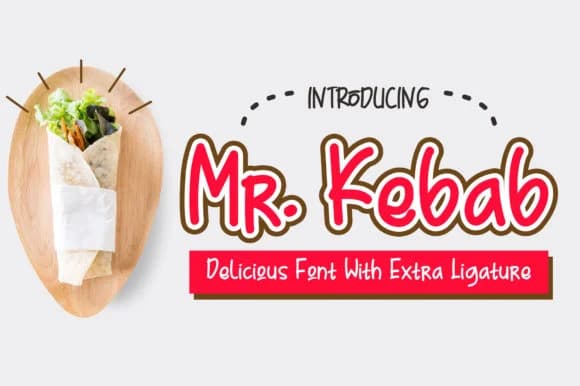
1 / 7About Mr. Kebab Font
Mr. Kebab by Omotu is a flowing handwritten script that brings personality and warmth to any design project. With its smooth, connected letterforms and excellent readability, this font works beautifully across both digital and print applications. The consistent stroke weight maintains clarity even at smaller sizes, making it equally effective for display headlines and supporting text elements. Whether you're creating invitation suites, designing product labels for artisan goods, crafting social media graphics for lifestyle brands, or developing menus for cafΓ© environments, Mr. Kebab delivers the approachable elegance that makes typography truly memorable.
This versatile script excels in branding applications where personality and approachability matter most. Consider Mr. Kebab for wine bottle labels, boutique product packaging that needs shelf presence, business card designs, letterheads, or signage that communicates creativity without excess. The font's friendly, organic character works particularly well for small businesses and independent creators who want their brand voice to feel authentic and inviting rather than corporate or sterile. Its flowing nature also makes it suitable for social media graphics, wedding stationery, and event posters where warmth and individuality are valued.
Mr. Kebab Font is a script font that shines as a display or heading face. Pair it with a clean sans-serif or serif font for body text β the contrast creates a clear hierarchy while the two styles stay balanced and easy to read.
Mr. Kebab Font